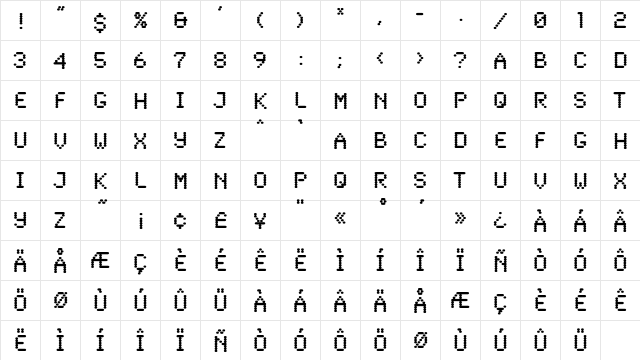
Synchro .. Plain
Design Context for Synchro Typeface
Synchro takes a measured approach to typography — its balanced proportions and neutral character make it a reliable workhorse for both digital and print work.